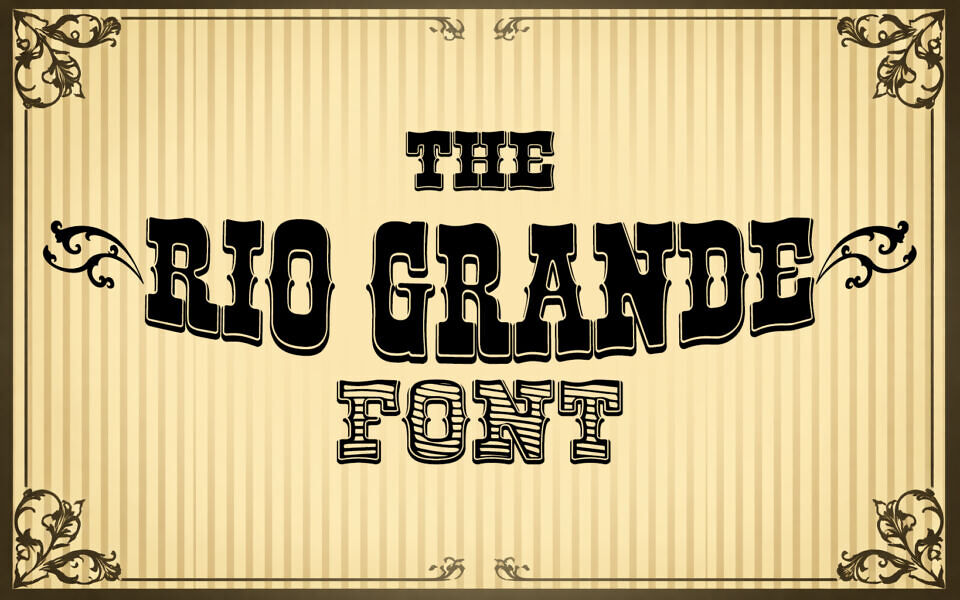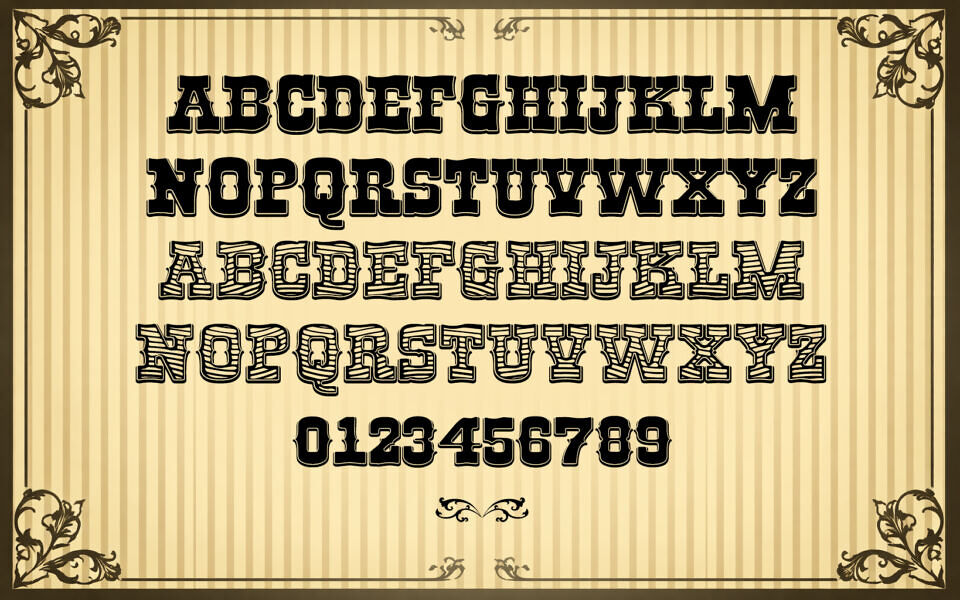
Rio Grande is a rugged, Western-style display font that captures the raw energy of the American frontier. Defined by its heavy slab serifs and weathered, wood-block aesthetic, it’s built for high-impact headlines.
This typeface is ideal for themed projects like saloon-style branding, rodeo posters, or vintage logos. If you need to inject grit and historical charm into your design, Rio Grande delivers an authentic “Wild West” feel that demands immediate attention.